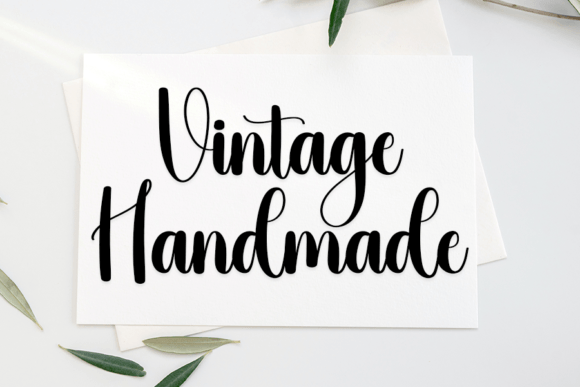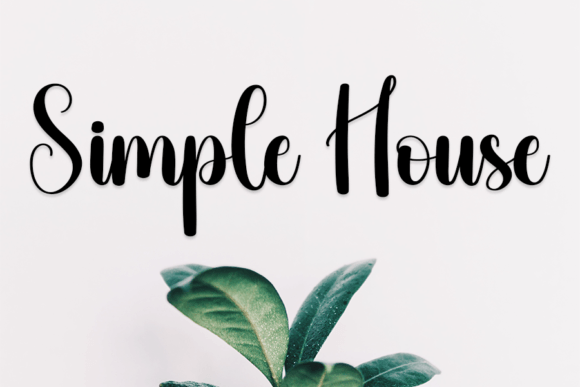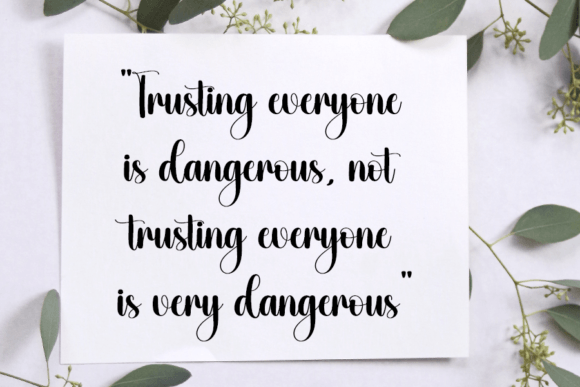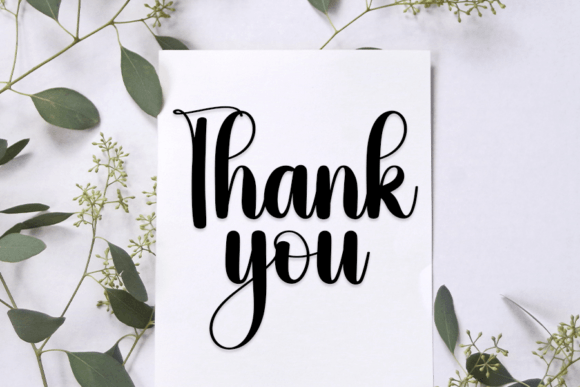
Introducing Bluey Font: The Delicate Handwritten Font for Cool and Unique Designs
Are you a designer or crafter looking for a font that can add a touch of elegance and whimsy to your projects? Look no further than Bluey Font, a delicate handwritten font carefully crafted for a cool and unique design. In this article, we’ll explore the features and benefits of Bluey Font, and how it can be used to elevate your designs.
What is Bluey Font?
Bluey Font is a beautiful, handwritten font that is perfect for adding a personal touch to your designs. With its delicate and cursive script, Bluey Font is ideal for creating elegant and sophisticated designs that stand out from the crowd. Whether you’re designing invitations, titles, or food products, Bluey Font is the perfect choice.
Features of Bluey Font
So, what makes Bluey Font so special? Here are just a few of its key features:
- Delicate and Handwritten: Bluey Font is a carefully crafted, handwritten font that is designed to be delicate and elegant.
- Cool and Unique Design: With its cursive script and whimsical feel, Bluey Font is perfect for creating cool and unique designs that stand out from the crowd.
- Versatile: Bluey Font can be used for a wide range of projects, from letters and invitations to food products and titles.
- Elegant and Sophisticated: Bluey Font has an elegant and sophisticated feel that is perfect for creating high-end designs.
Uses for Bluey Font
So, how can you use Bluey Font in your designs? Here are just a few ideas to get you started:
- Invitations: Use Bluey Font to create beautiful and elegant invitations for weddings, parties, and other special events.
- Food Products: Add a touch of whimsy and elegance to your food product labels and packaging with Bluey Font.
- Titles and Headings: Use Bluey Font to create stunning titles and headings for your blog posts, articles, and other written content.
- Letters and Correspondence: Add a personal touch to your letters and correspondence with Bluey Font.
Benefits of Using Bluey Font
So, why should you choose Bluey Font for your designs? Here are just a few benefits of using this beautiful font:
- Unique and Eye-Catching: Bluey Font is a unique and eye-catching font that will help your designs stand out from the crowd.
- Elegant and Sophisticated: Bluey Font has an elegant and sophisticated feel that is perfect for creating high-end designs.
- Versatile: Bluey Font can be used for a wide range of projects, making it a great addition to your font library.
- Easy to Read: Despite its delicate nature, Bluey Font is easy to read and understand, making it perfect for body text and other written content.
Tips for Using Bluey Font
Here are a few tips for getting the most out of Bluey Font:
- Use it Sparingly: While Bluey Font is beautiful, it can be overwhelming if used too much. Use it sparingly to add a touch of elegance and whimsy to your designs.
- Pair it with Other Fonts: Bluey Font pairs well with other fonts, such as sans-serif fonts and script fonts. Experiment with different pairings to find the one that works best for your design.
- Adjust the Size and Color: Adjust the size and color of Bluey Font to fit your design. A smaller size and a pastel color can create a delicate and whimsical feel, while a larger size and a bold color can create a more dramatic effect.
In conclusion, Bluey Font is a beautiful and delicate handwritten font that is perfect for adding a touch of elegance and whimsy to your designs. With its cool and unique design, versatility, and ease of use, Bluey Font is a great addition to any font library. Whether you’re a designer or crafter, Bluey Font is sure to inspire your creativity and help you create stunning designs that stand out from the crowd.